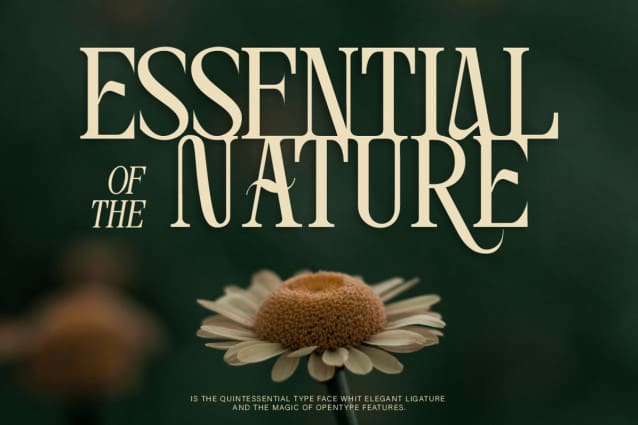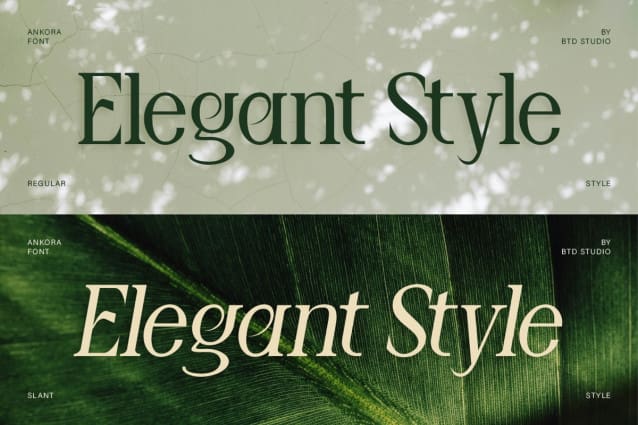
Ankora Font
Ankora Font, our elegant serif that show the elegance and class style. The regular and slant style from this typeface brings a touch of timeless beauty. And the elegance of ligature make this typeface ideal for creating a polished and professional look such as high end branding, editorial design, luxurious invitation and etc.